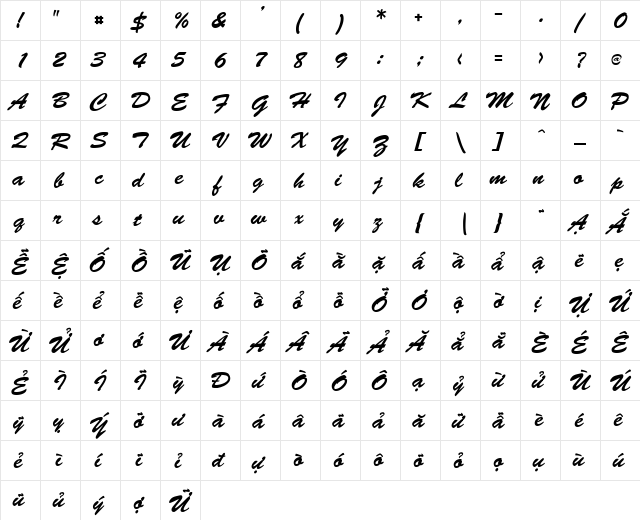
PhuongThao 1.1 Regular
PhuongThao 1.1 is a composed and adaptable typeface that performs quietly and consistently across a wide range of design contexts.